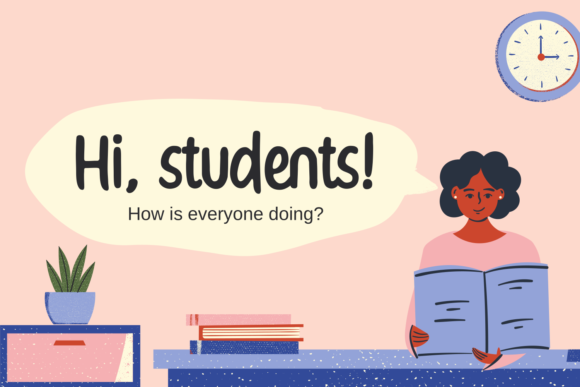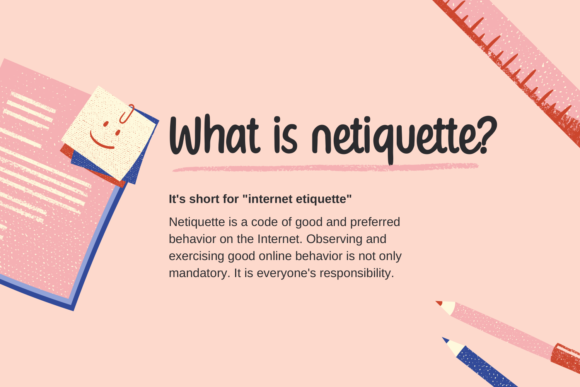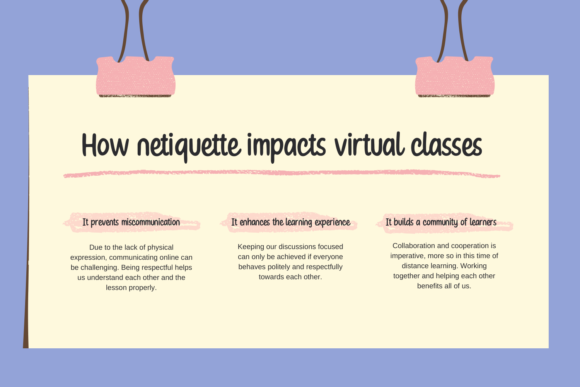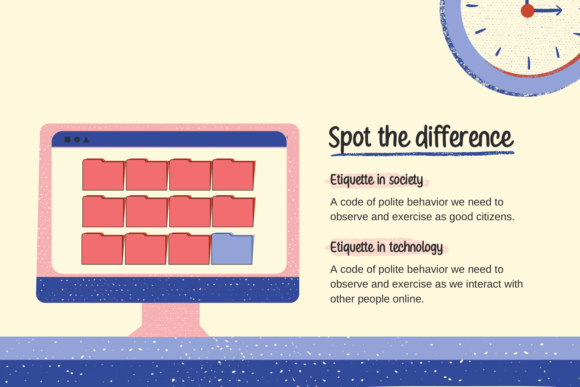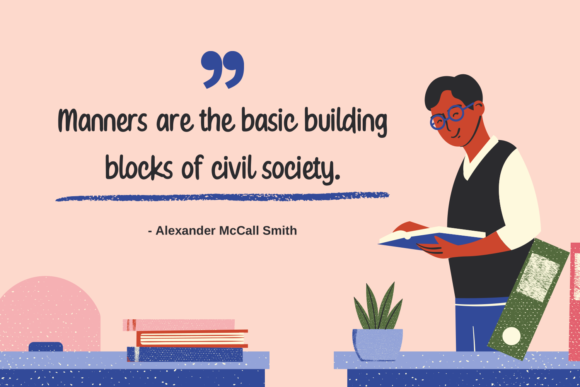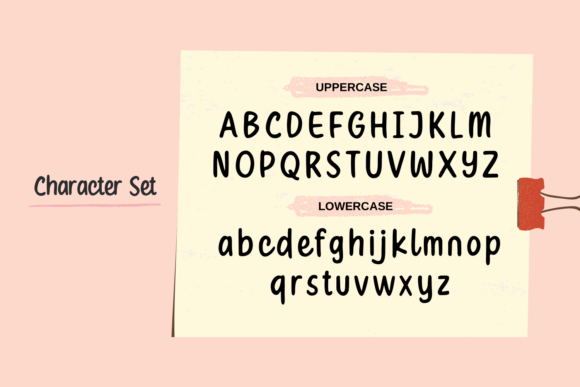
Crafty Notes Font: Adding a Lovely Touch to Your Designs
In the world of design, fonts play a crucial role in conveying the tone and personality of a project. If you’re looking for a font that can add a cute and simple touch to your creations, look no further than Crafty Notes. This lettered handwritten font is perfect for designers and crafters who want to infuse their work with a playful and charming vibe.
What is Crafty Notes Font?
Crafty Notes is a beautifully crafted font that features a handwritten, lettered style. Its simplicity and cuteness make it an excellent choice for a wide range of design projects, from cartoon-related designs to children’s games and more. The font’s playful and whimsical feel is sure to capture the attention of your audience and leave a lasting impression.
Key Features of Crafty Notes Font
- Cute and Simple: Crafty Notes boasts a clean and uncomplicated design that is both visually appealing and easy to read.
- Handwritten Style: The font’s handwritten style gives it a personal and organic feel that is perfect for designs that require a human touch.
- Lettered: Each letter is carefully crafted to ensure that the font is not only beautiful but also highly legible.
- Versatile: Crafty Notes can be used for a wide range of design projects, from digital designs to print materials.
Uses of Crafty Notes Font
Crafty Notes is an incredibly versatile font that can be used in various design projects, including:
- Cartoon-related designs: The font’s playful and whimsical feel makes it perfect for cartoon characters, animations, and comics.
- Children’s games: Crafty Notes is an excellent choice for children’s games, puzzles, and educational materials.
- Stationery and crafts: The font’s handwritten style makes it ideal for stationery, journaling, and other craft projects.
- Digital designs: Crafty Notes can be used for social media graphics, blog posts, and website designs.
Why Choose Crafty Notes Font?
With so many fonts available, why should you choose Crafty Notes? Here are a few reasons:
- Unique and eye-catching: Crafty Notes is a one-of-a-kind font that is sure to grab attention.
- Easy to read: The font’s simple and clear design makes it easy to read, even for young children.
- Customizable: Crafty Notes can be easily customized to fit your design needs.
Tips for Using Crafty Notes Font
Here are a few tips for using Crafty Notes effectively in your designs:
- Pair with other fonts: Combine Crafty Notes with other fonts to create a unique and visually appealing design.
- Experiment with colors: Try out different colors to find the perfect match for your design.
- Use for headings and titles: Crafty Notes is perfect for headings and titles, adding a touch of personality to your design.
Crafty Notes is a beautiful and versatile font that can add a lovely touch to your designs. Its cute and simple design makes it perfect for a wide range of projects, from cartoon-related designs to children’s games and more. With its unique and eye-catching style, Crafty Notes is sure to become a favorite among designers and crafters.